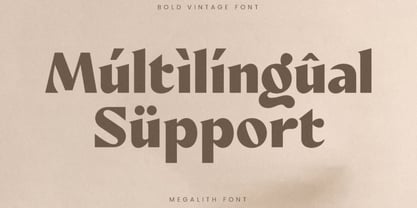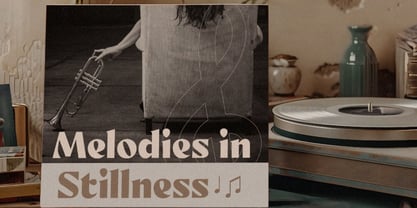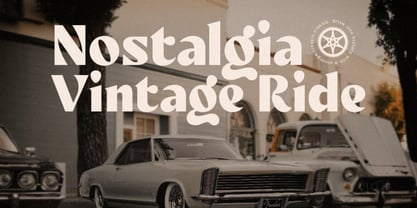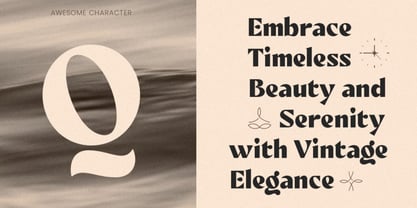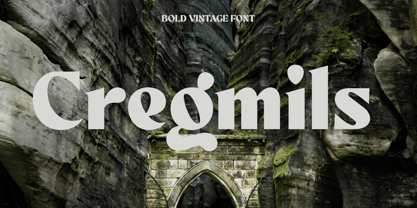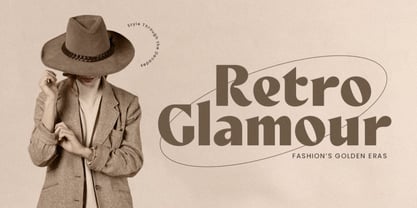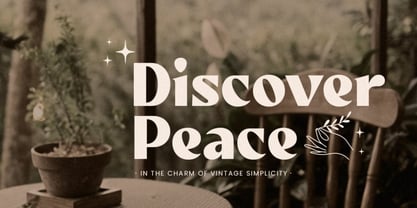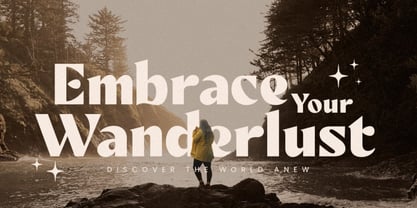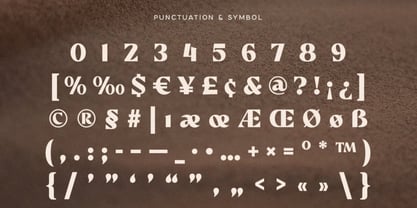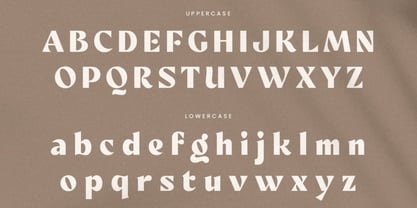
Cregmils
Cregmils – Bold Vintage Font Cregmils is a bold vintage font inspired by the strength and character of classic typography from past decades. Designed to capture the essence of retro design, Cregmils features solid, confident letterforms that echo the charm of old signage, print posters, and handcrafted lettering. Every curve and edge is carefully shaped to deliver a nostalgic feel while maintaining the clarity and performance needed for modern design work. This font is perfect for projects that demand attention and personality. Cregmils shines in logos, branding, posters, packaging, apparel, and event promotions where a strong visual presence is essential. Its bold structure allows it to stand out in headlines and titles, while its vintage influence adds warmth and authenticity that connects with audiences. Whether you are building a retro-inspired brand or adding a classic touch to contemporary layouts, Cregmils provides the right balance of impact and style. Cregmils feels powerful, nostalgic, and expressive. It brings a sense of heritage and craftsmanship into your designs, making every composition feel more intentional and memorable. Its versatility allows it to adapt across a wide range of creative directions, from rustic themes to modern vintage aesthetics. Cregmils Bold Vintage Font Features: • Retro bold characters ready • Punctuation, numbers, and symbols • Uppercase and lowercase • OpenType features • Multilingual support for 50 plus languages